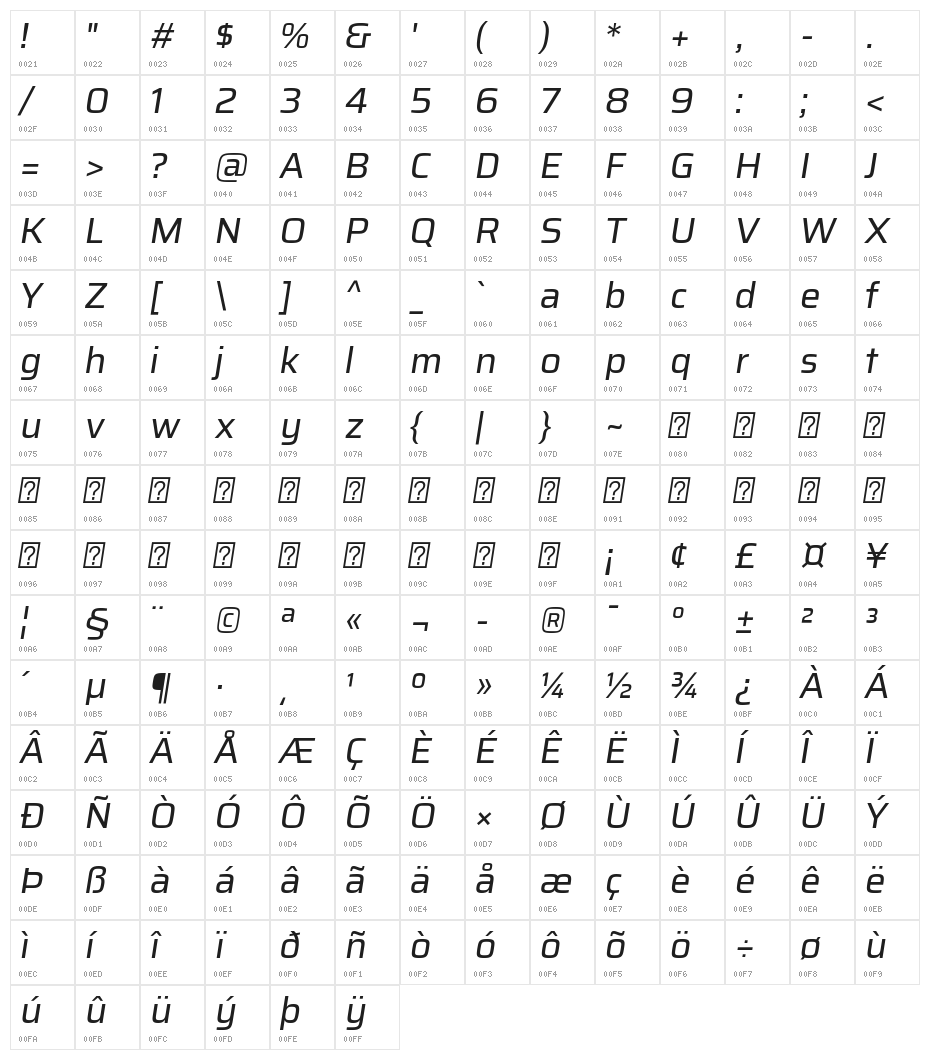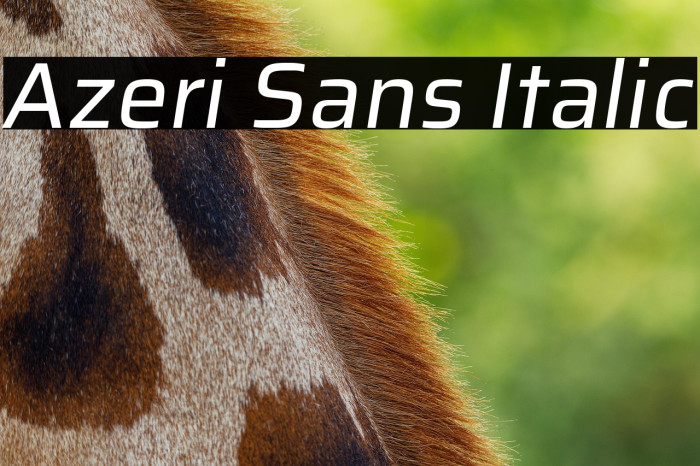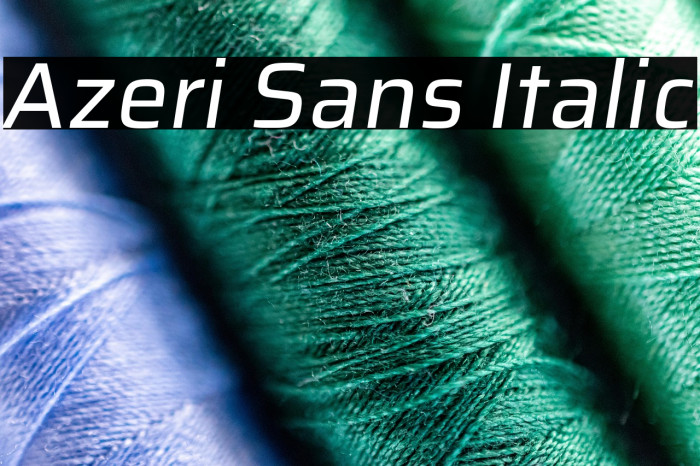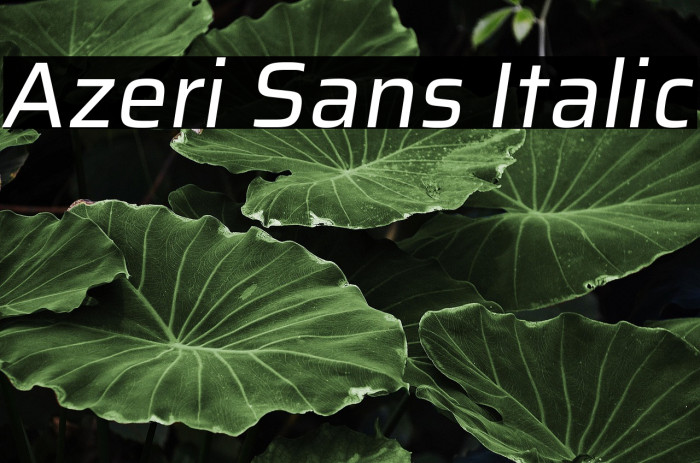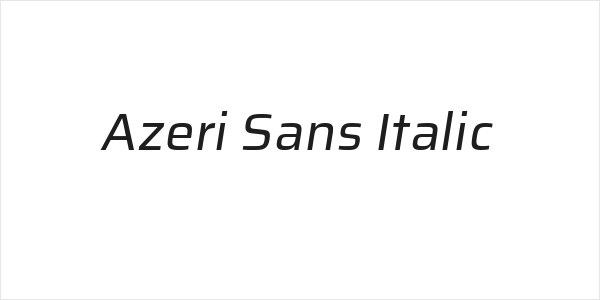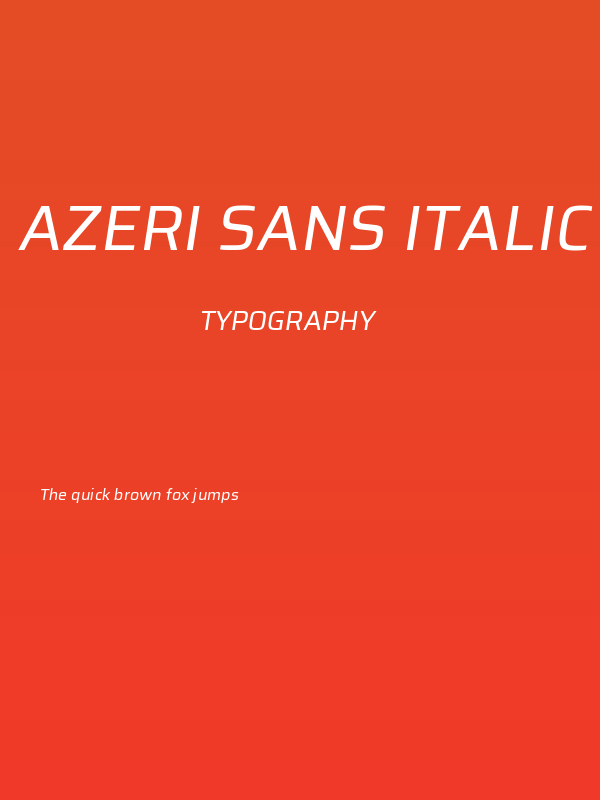
Azeri Sans Italic Font
Azeri Sans Italic Description
This font features a sleek, modern sans-serif design with a distinct italic slant, giving it a dynamic and forward-moving appearance. The characters are clean and streamlined, with uniform stroke widths that provide a balanced and harmonious look. The uppercase letters are bold and assertive, while the lowercase letters maintain a smooth and approachable style. The numerals are clear and legible, making them suitable for various applications. Special characters are well-integrated, maintaining the overall aesthetic of the font. The consistent character spacing ensures readability and a professional appearance.
| Proposed Projects | Ideal for branding, advertising, and digital media projects that require a contemporary and professional look. |